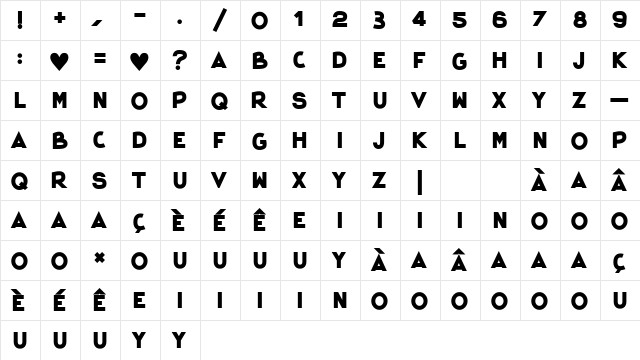
HyperCool Bold
Design Context for HyperCool Typeface
HyperCool is a composed and adaptable typeface that performs quietly and consistently across a wide range of design contexts. Its bold stroke weight gives it real presence on the page.
Pro Tip: Use HyperCool in both headline and body roles to test its range before committing to a single application.